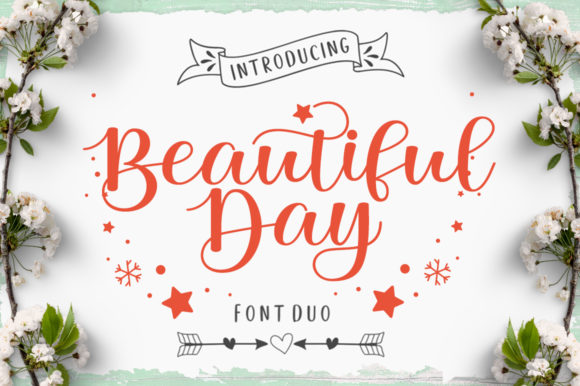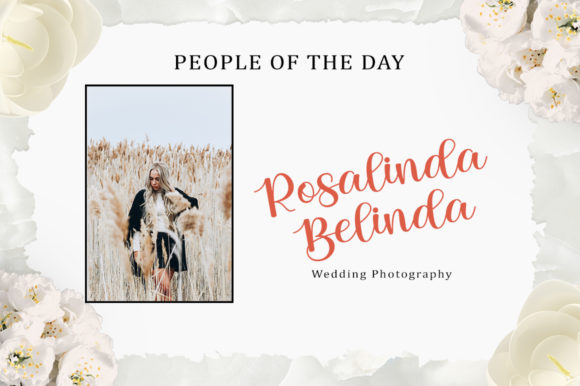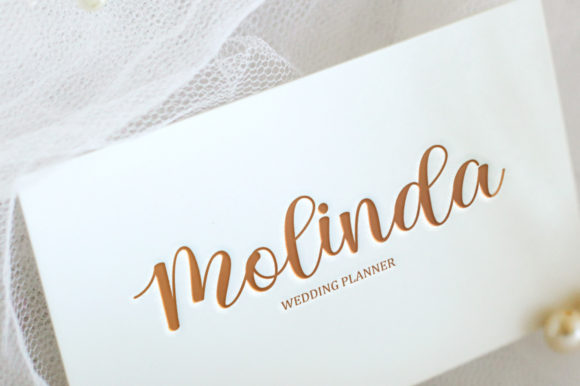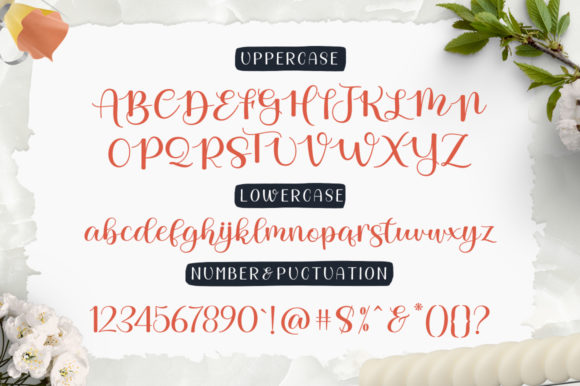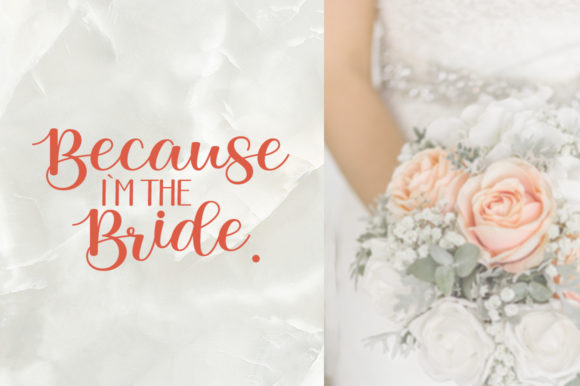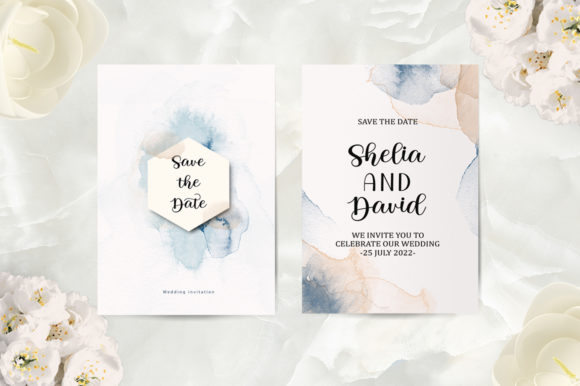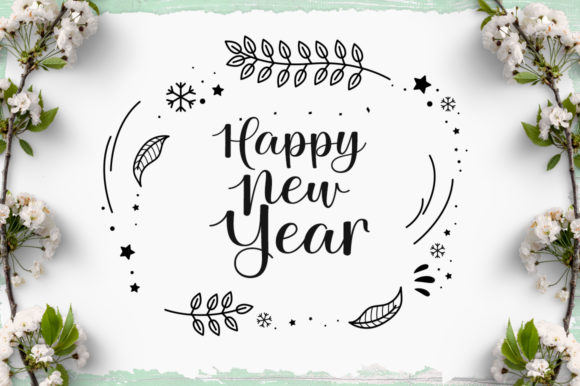
Beautiful Day Font
About Beautiful Day Font
Beautiful Day is a joyful and modern handwritten font. It looks beautiful on a variety of designs requiring a personalized style, such as wedding invitations, thank you cards, weddings, greeting cards, logos and so on.